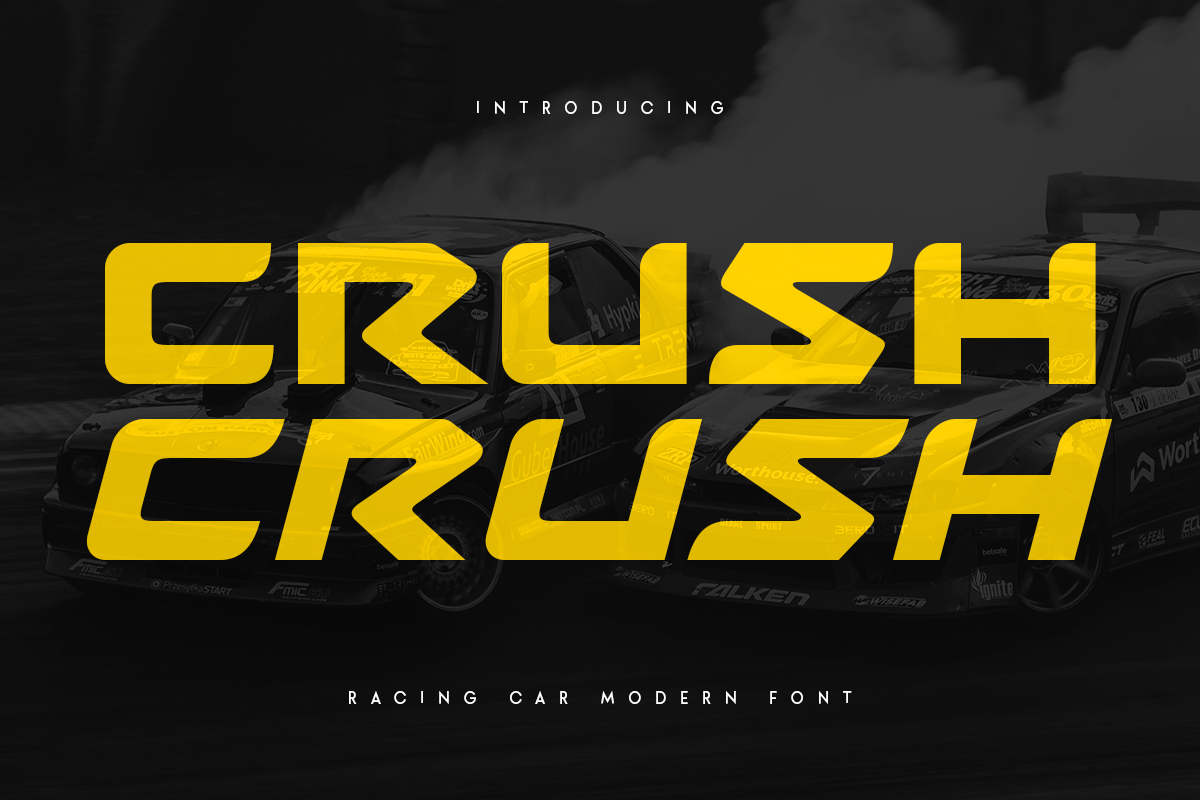
CRUSH - Racing Car Modern Font
CRUSH delivers high-impact racing typography engineered for sports, action, and technology branding that demands attention. This Racing Car Modern Font is specially crafted for branding, titles, and standout typography in sport and action contexts. Perfect for adding distinctive style and powerful headlines to sport, technology, action, and fighting themed projects. CRUSH features a bold action style with modern aesthetics, making it ideal for projects that need to showcase dynamic main concepts...